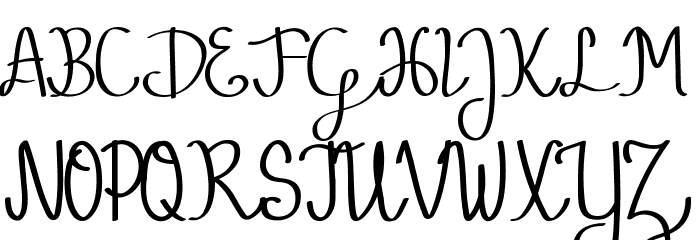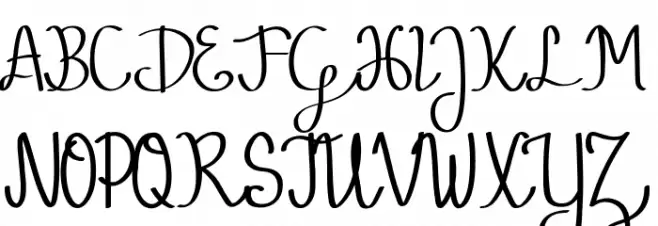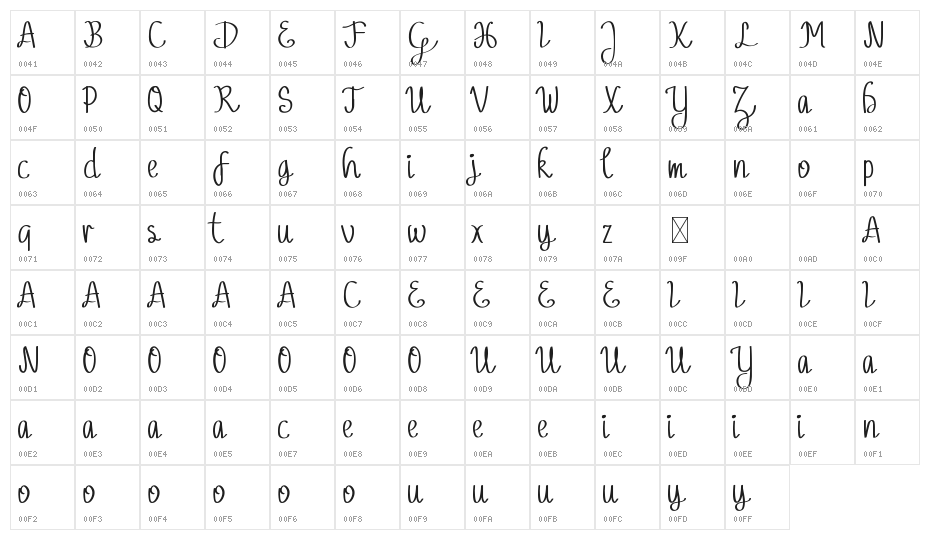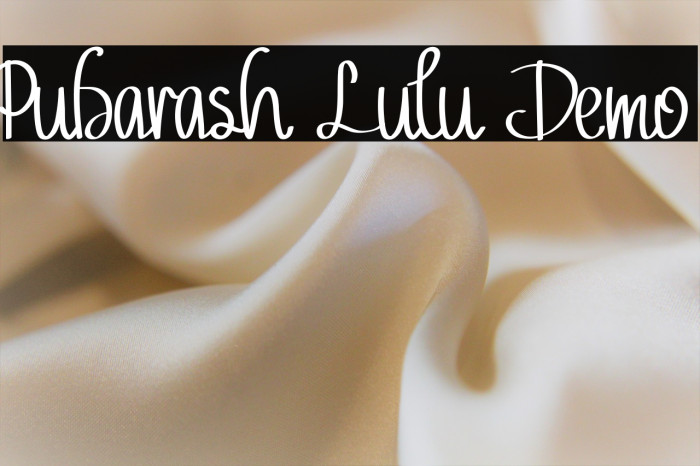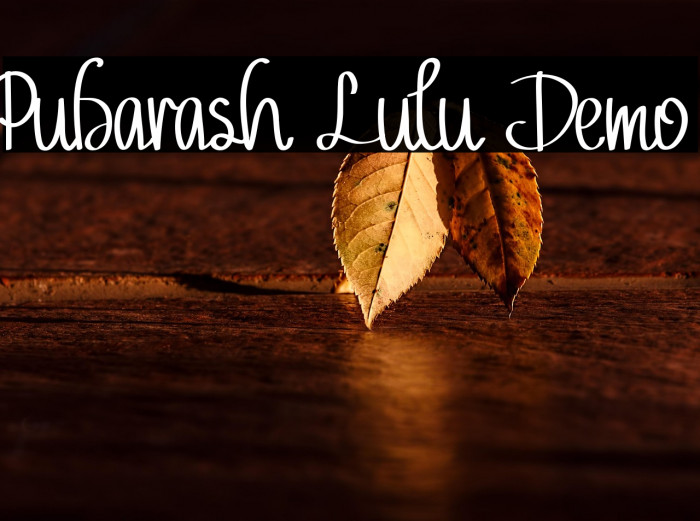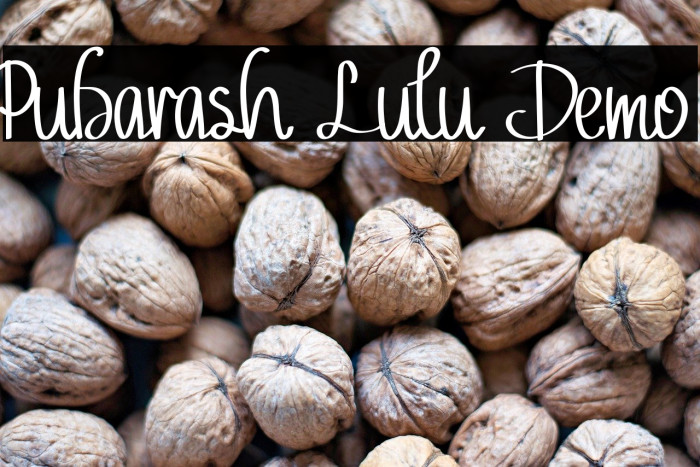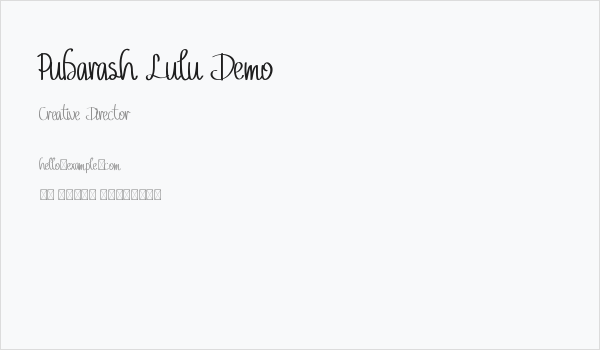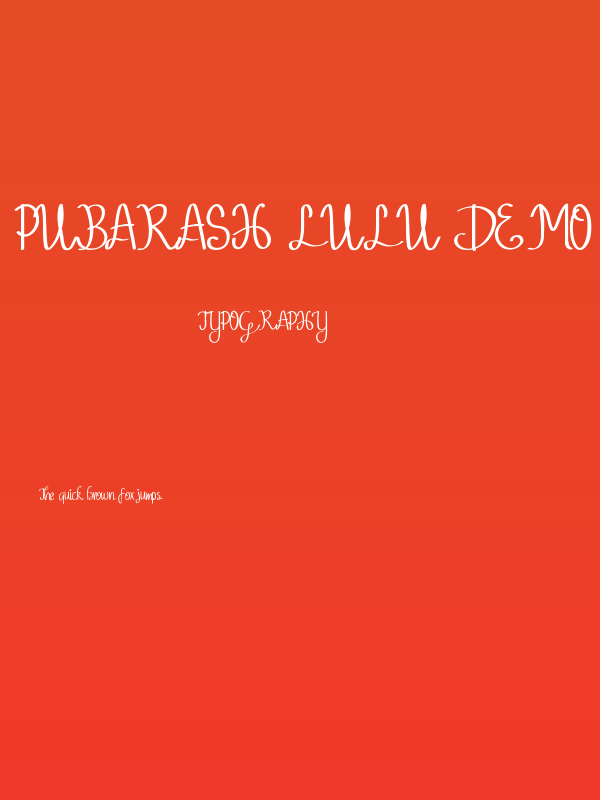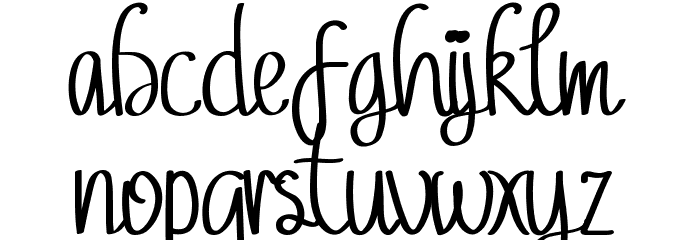
Pubarash Lulu Demo Font
Pubarash Lulu Demo Description
This font features a playful and whimsical script style, characterized by its flowing, interconnected letters. The uppercase letters exhibit a unique blend of curves and loops, giving them a lively and dynamic appearance. The lowercase letters maintain a consistent style, with some characters featuring distinctive flourishes that add to the font's charm. The overall design is reminiscent of hand-drawn calligraphy, with a modern twist that makes it suitable for a variety of creative applications. The font's strokes are moderately thick, providing a balanced contrast that enhances readability while maintaining its decorative appeal. It's perfect for projects that require a touch of elegance and personality, such as invitations, greeting cards, and branding materials.
| Proposed Projects | Ideal for invitations, greeting cards, branding materials, and any project requiring a touch of elegance and personality. |